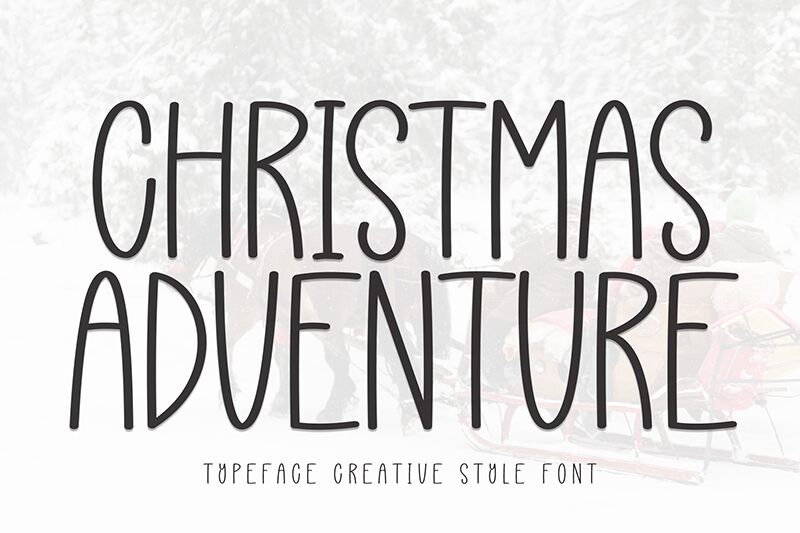
Christmas Adventure
Christmas Adventure font is a condensed handwritten typeface designed by Scratchones, sporting narrow proportions and an organic flow. This free handwritten font combines casual elegance with quirky charm. It has a genuine informal appeal that feels captivating and personal.
Use Christmas Adventure in crafting beautiful postcards, invitations, posters, flyers, titles, labels, logos, menus of food restaurants and coffee houses. Additional use cases include book covers for children’s stories or comics book cover pages.